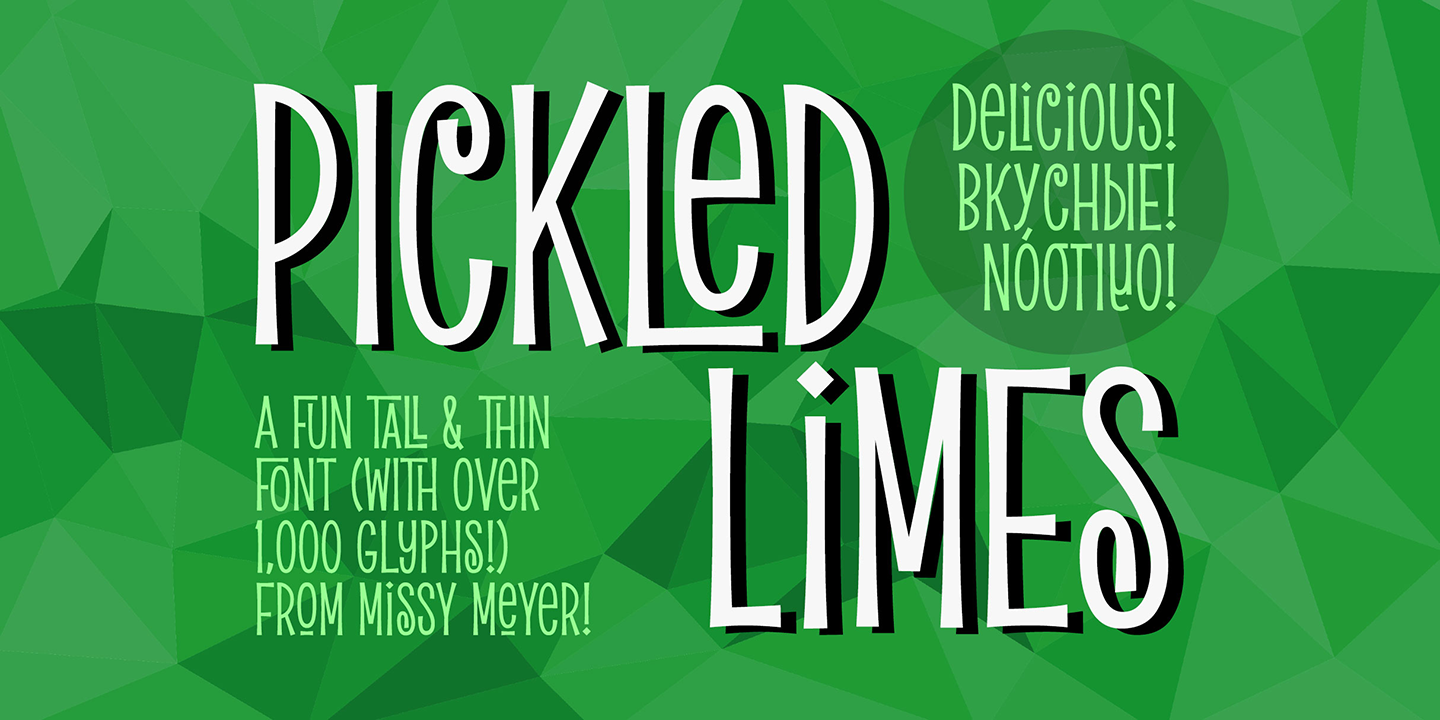
Pickled Limes Font excels in quirky design applications including artisanal food branding, specialty restaurant signage, gourmet condiment packaging, farmers market materials, craft food labels, culinary blog headers, food truck graphics, and zesty advertising campaigns that require typography with tangy character and artisanal food charm.
What makes Pickled Limes Font exciting is its delightful ability to capture the essence of artisanal food culture and culinary creativity through playfully crafted letterforms that embody the quirky charm of specialty food products. This distinctive typeface features tangy characteristics with preserved details and zesty proportions that instantly communicate artisanal quality, culinary creativity, and gourmet authenticity. The font's pickled personality and gourmet appeal make it perfect for brands seeking to establish connection with food enthusiasts and communicate values of culinary craftsmanship, artisanal quality, and gourmet experience.
Pickled Limes Font family includes various weights and artisanal variations designed for comprehensive gourmet communication. The family typically includes light, regular, bold, and decorative weights, complemented by tangy alternates, culinary ligatures, and extended character sets with food symbols that enhance its artisanal aesthetic and provide maximum gourmet impact.
Culinary brand designers consistently choose Pickled Limes Font Free Download for projects requiring typography that embodies artisanal food culture and gourmet authenticity. This flavorful typeface delivers exceptional culinary appeal across food applications, from digital gourmet platforms to physical specialty packaging, ensuring consistent brand messaging with unmistakable artisanal authority and culinary charm. The font's zestily crafted letterforms maintain excellent readability while delivering the distinctive presence that gourmet food brands demand. Specialty food agencies worldwide rely on this artisanal typeface to communicate brand values of culinary creativity, artisanal quality, and gourmet excellence. Add zest to your brand with Pickled Limes Font and create memorable visual communications that resonate with audiences who appreciate gourmet food culture, artisanal craftsmanship, and the distinctive flavor of specialty culinary experiences.